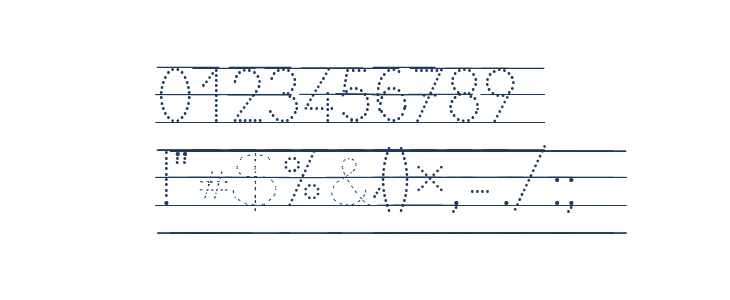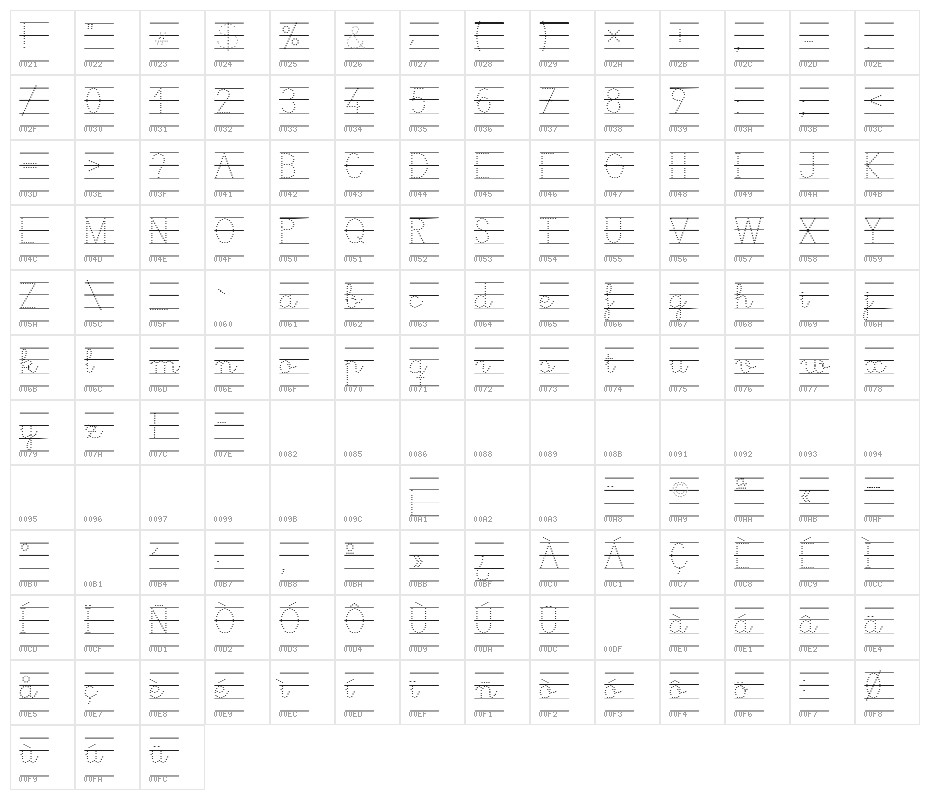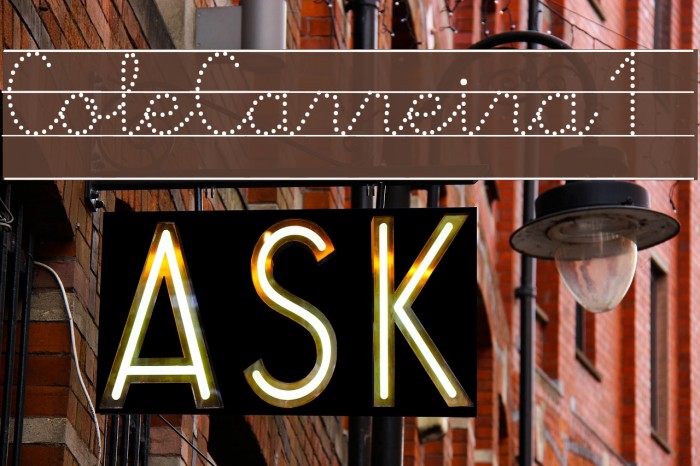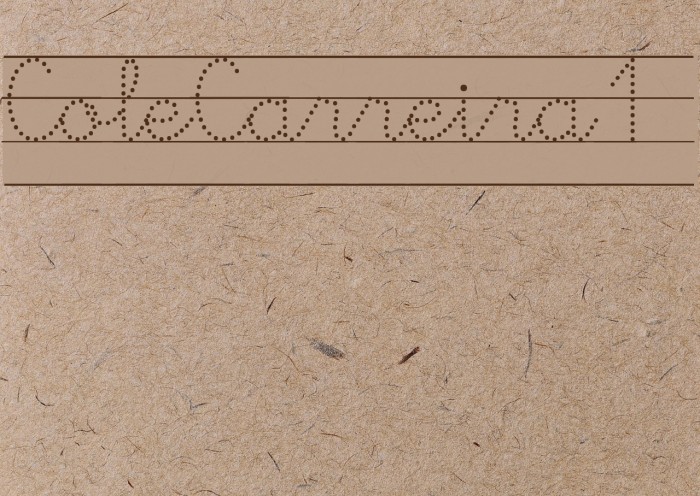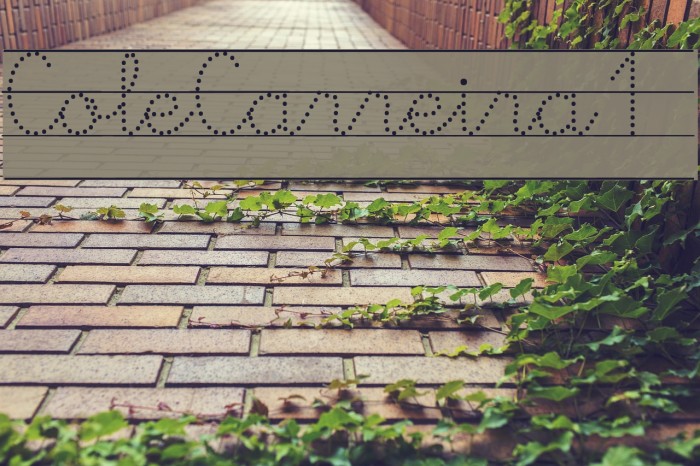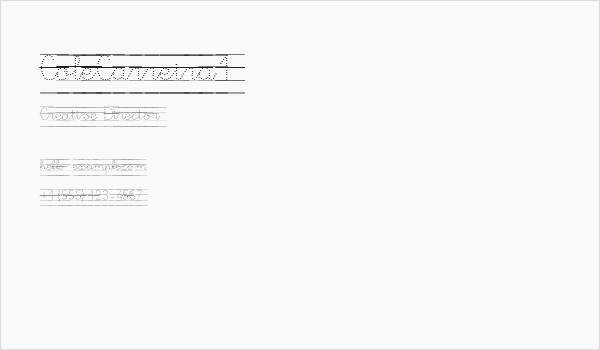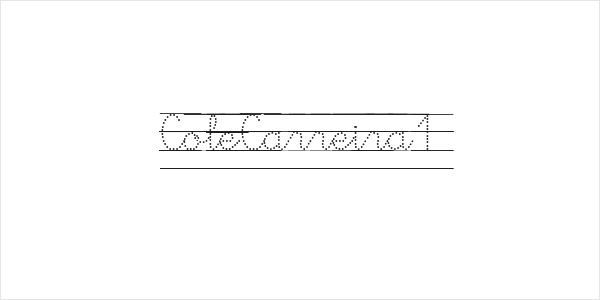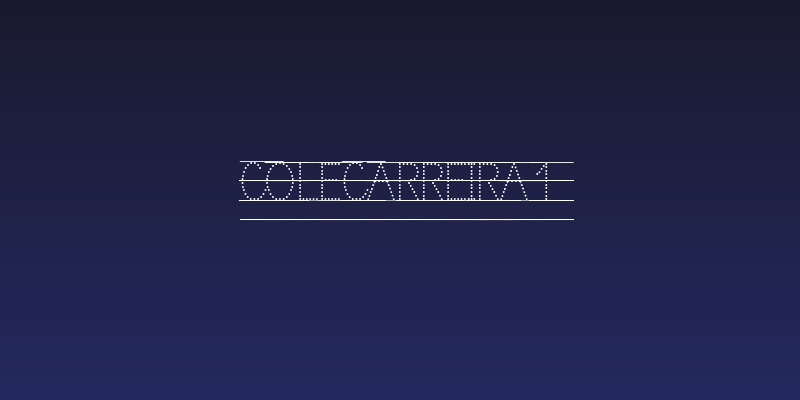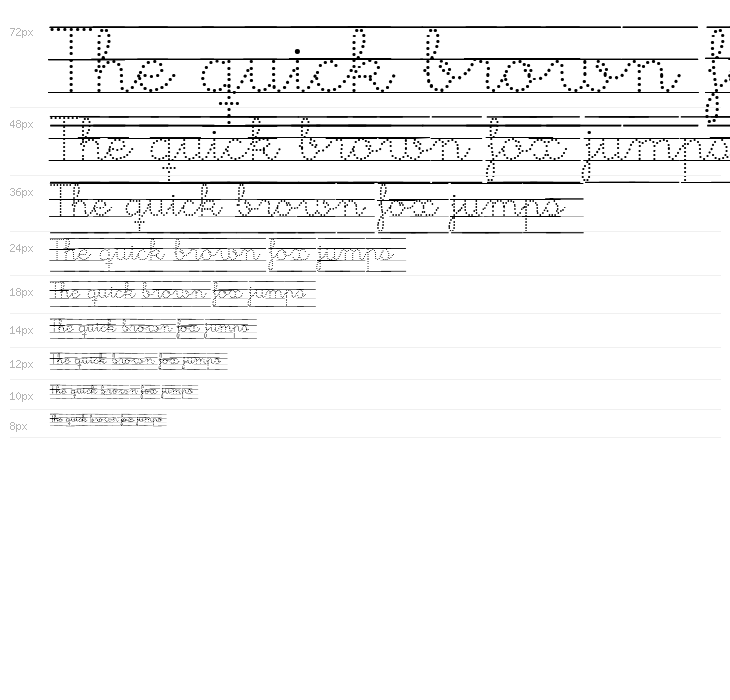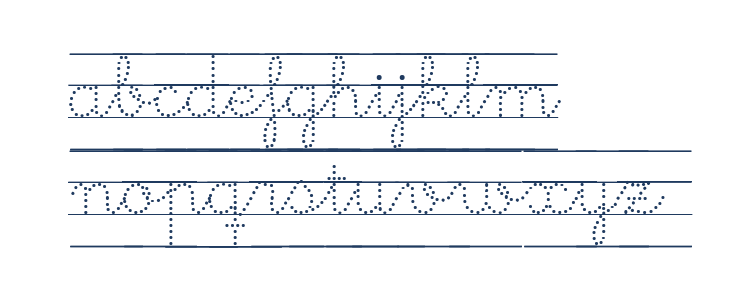
ColeCarreira1 Font
ColeCarreira1 Description
This font features a unique dotted design, where each character is composed of small, evenly spaced dots. The uppercase letters are bold and structured, maintaining a consistent height and width, which gives them a modern and geometric appearance. The lowercase letters follow a similar dotted pattern but are more fluid and cursive, adding a touch of elegance and playfulness. Numbers and special characters are also represented in this dotted style, ensuring uniformity across the entire typeface. The font's distinct style makes it stand out, offering a creative and unconventional look that can be both eye-catching and functional.